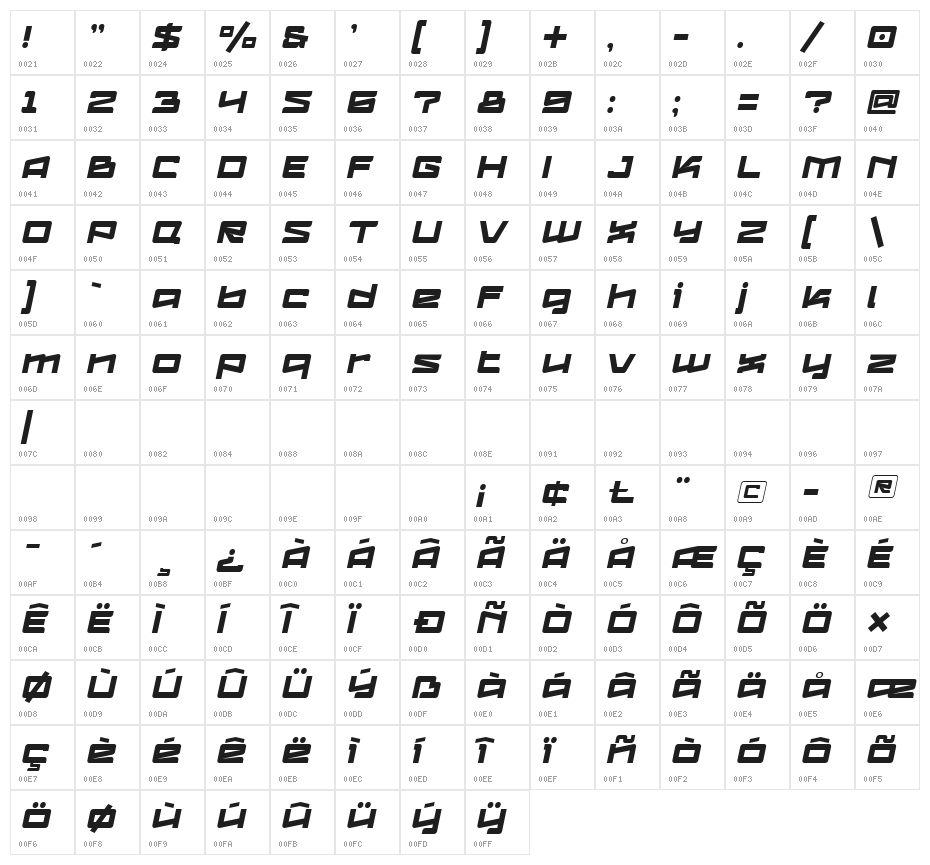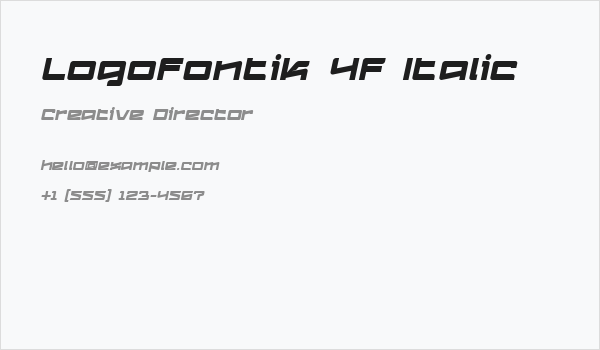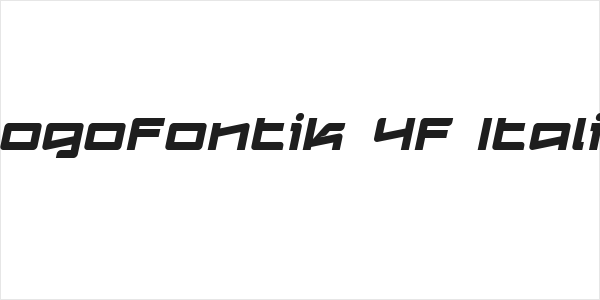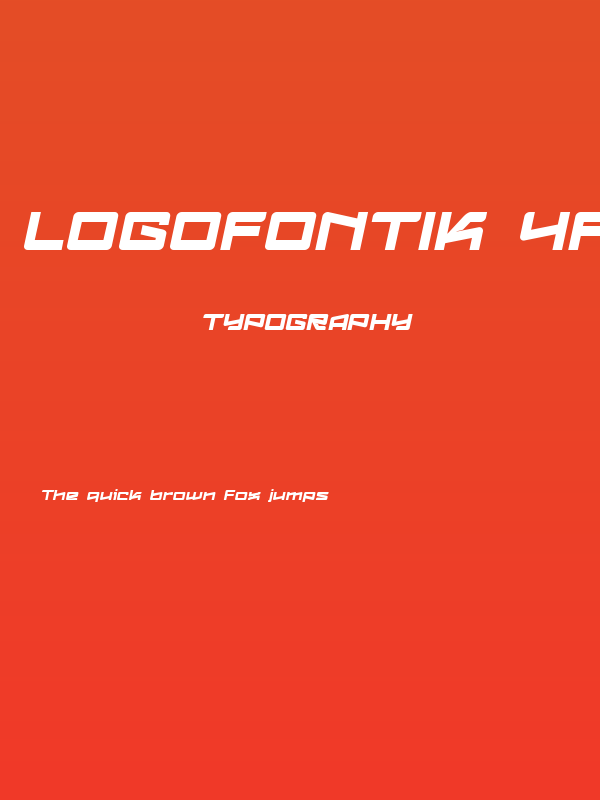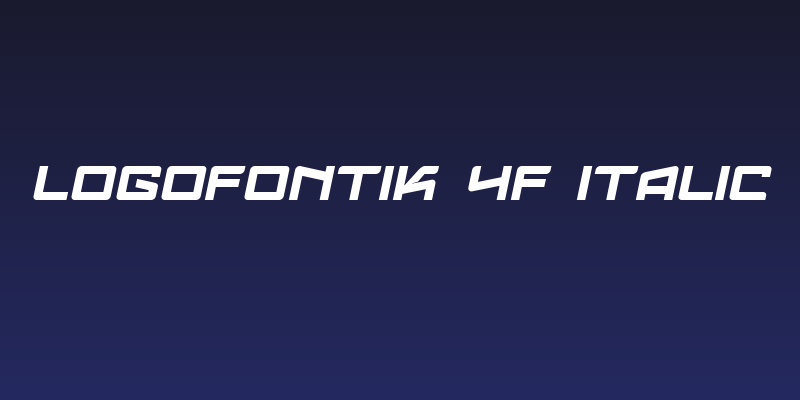
Logofontik 4F Italic Font
Logofontik 4F Italic Description
This font features a dynamic and modern design with a distinct italic slant, giving it a sense of motion and energy. The characters are bold and angular, with sharp edges and a futuristic aesthetic. The uppercase and lowercase letters maintain a consistent style, with a slightly condensed width that enhances its sleek appearance. The numerals and special characters are designed to match the overall style, ensuring a cohesive look across all text elements. This font is ideal for projects that require a bold and contemporary touch.
| Use Case | Logos, Headlines, Branding |
| Proposed Projects | Ideal for branding, sports team logos, tech-related designs, and dynamic advertising materials. |